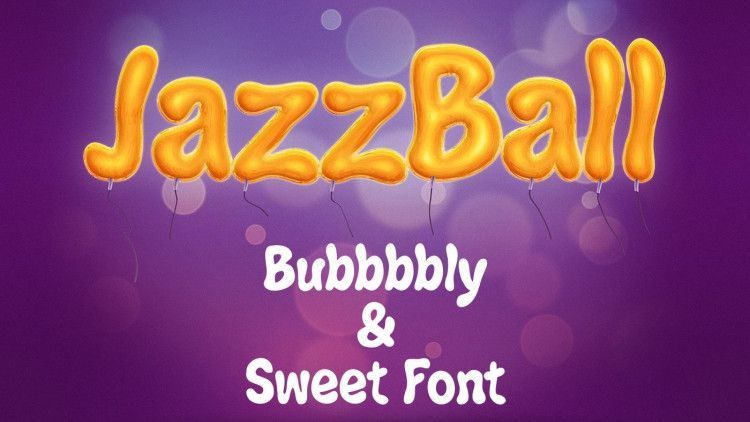
Jazz Ball Display Font
Jazz Ball is a bubble and sweet font.
It comes in Regular and Bold weights, contains upper and lowercase letters, numbers, symbols, supports Latin and Cyrillic language.